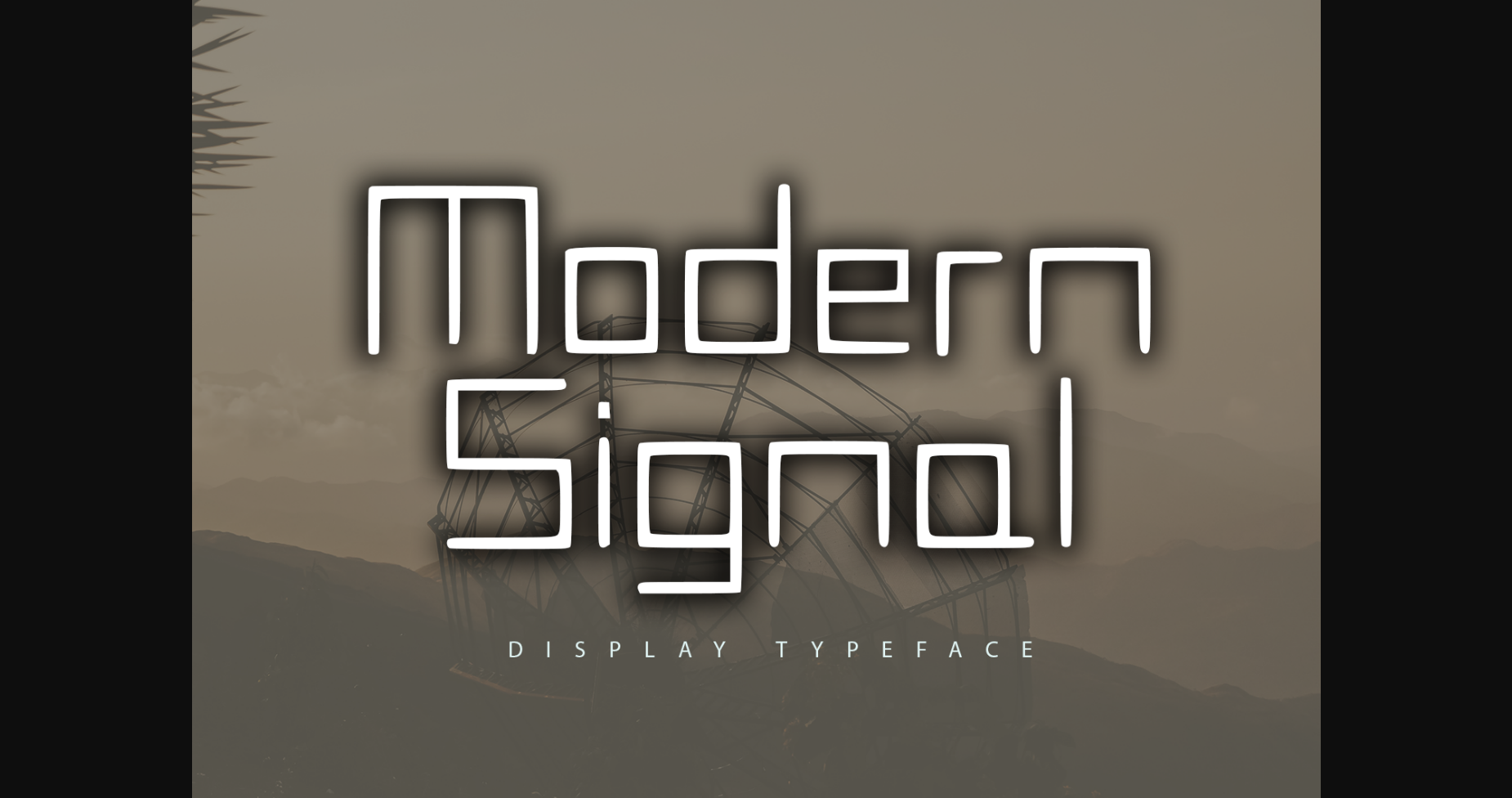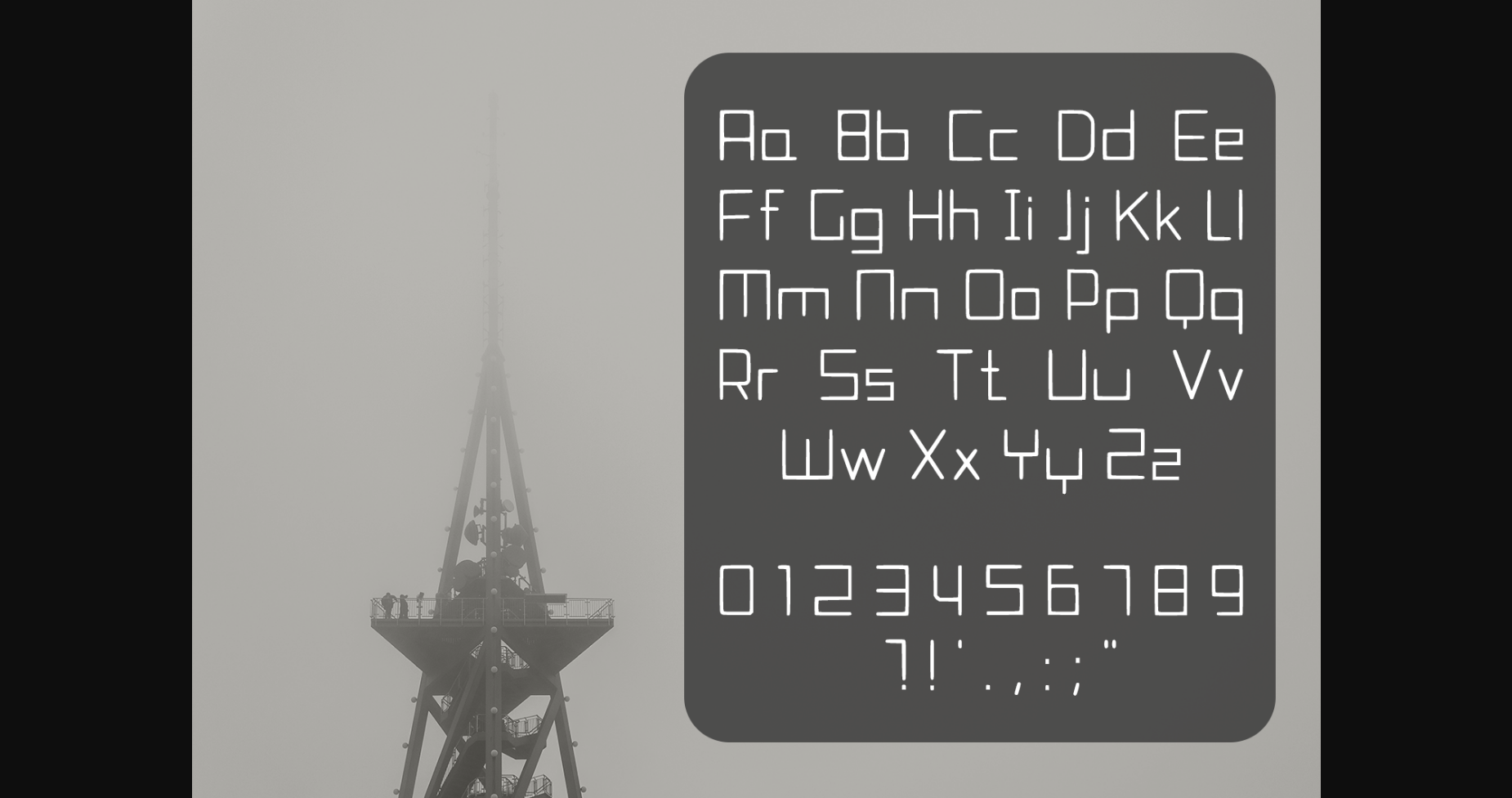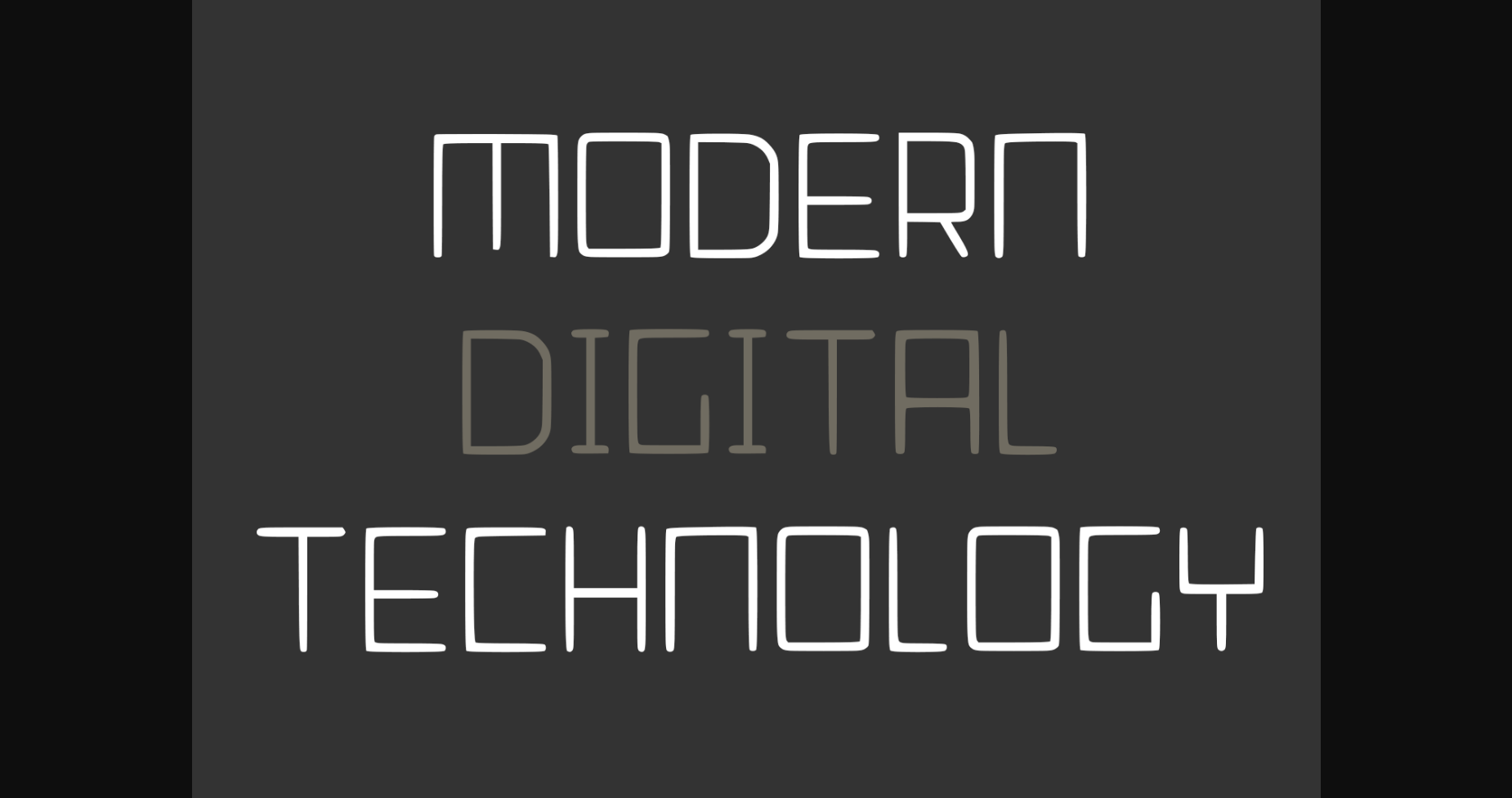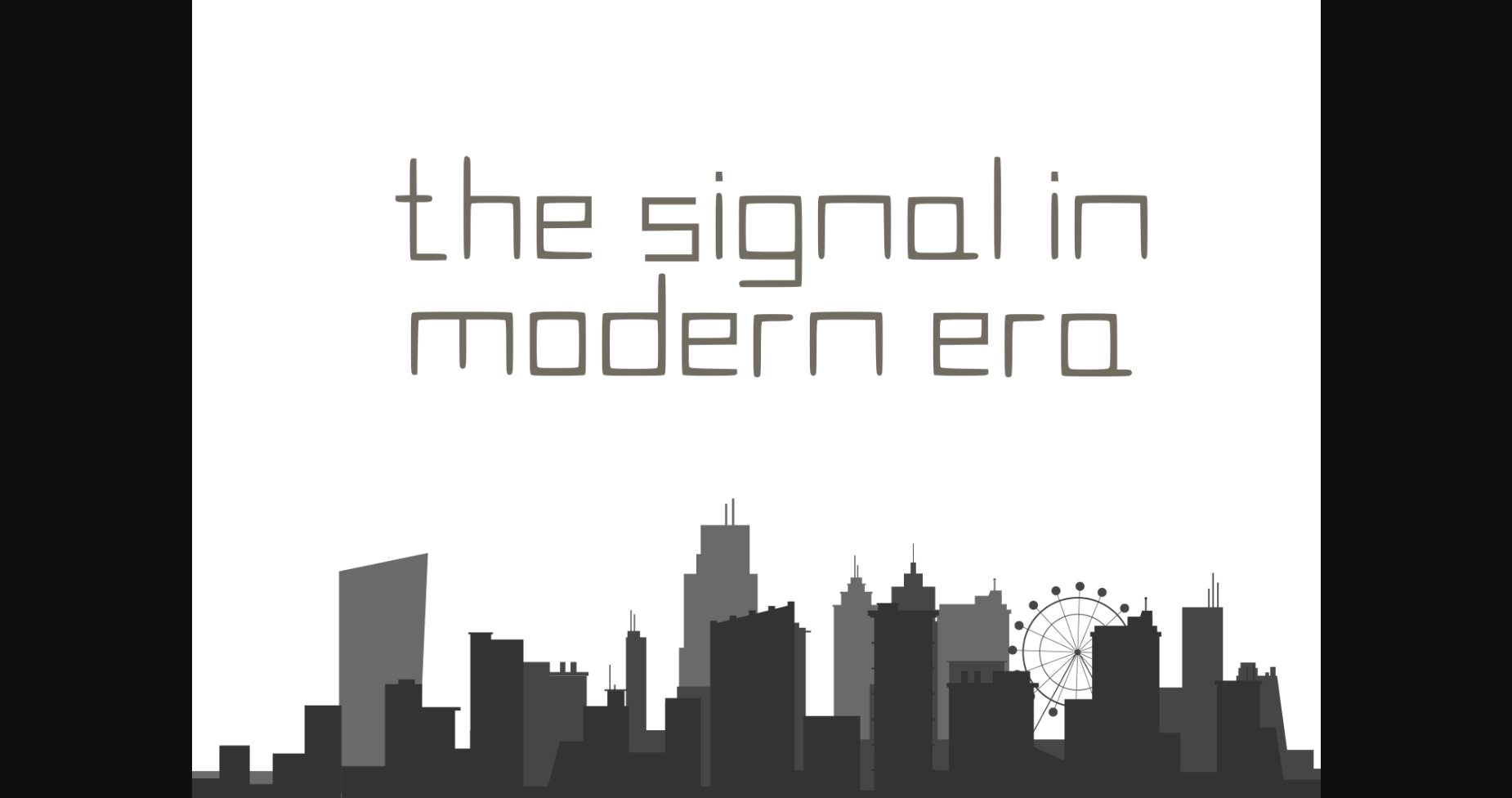
Modern Signal is a modern sans-serif typeface that can be used for branding, posters, apparel, merchandise, stickers, or anything that needs a modern and robotic look.